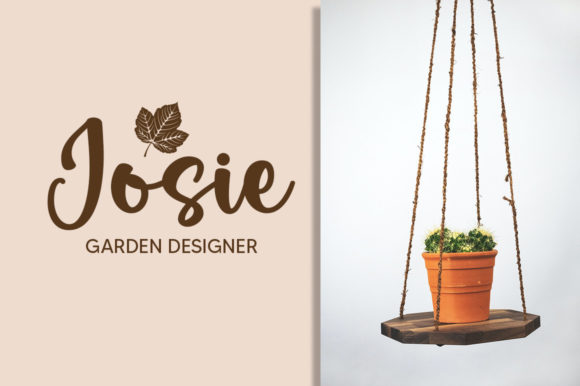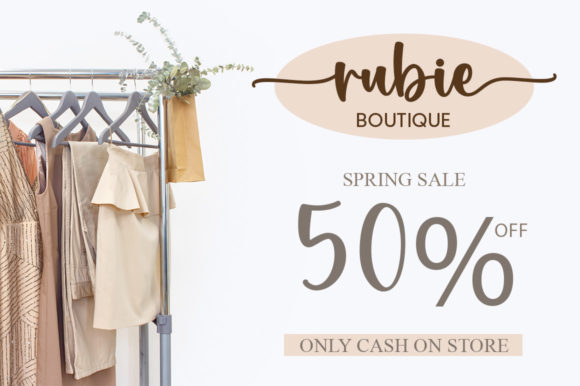
Clay Pottery Font
db-ku.com - Script & Handwritten -- Clay Pottery is a fine and smart script font that emanates sophistication and elegance. Fall in love with its incredibly versatile style, and use it to create spectacular designs! This font is PUA encoded, which means you can access all of the glyphs and swashes with ease!